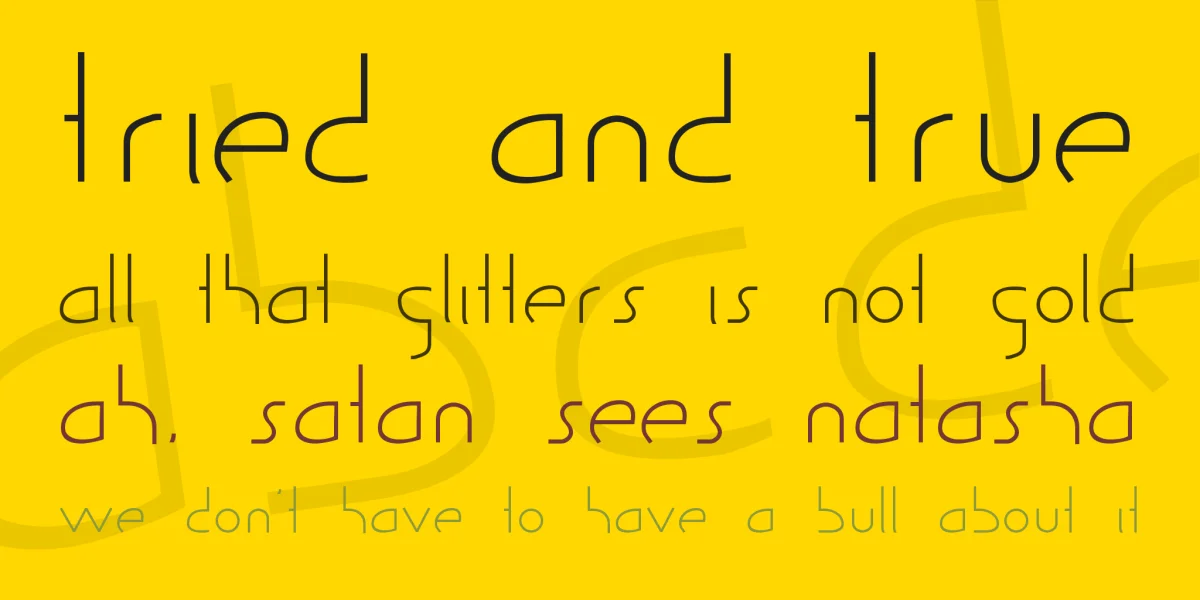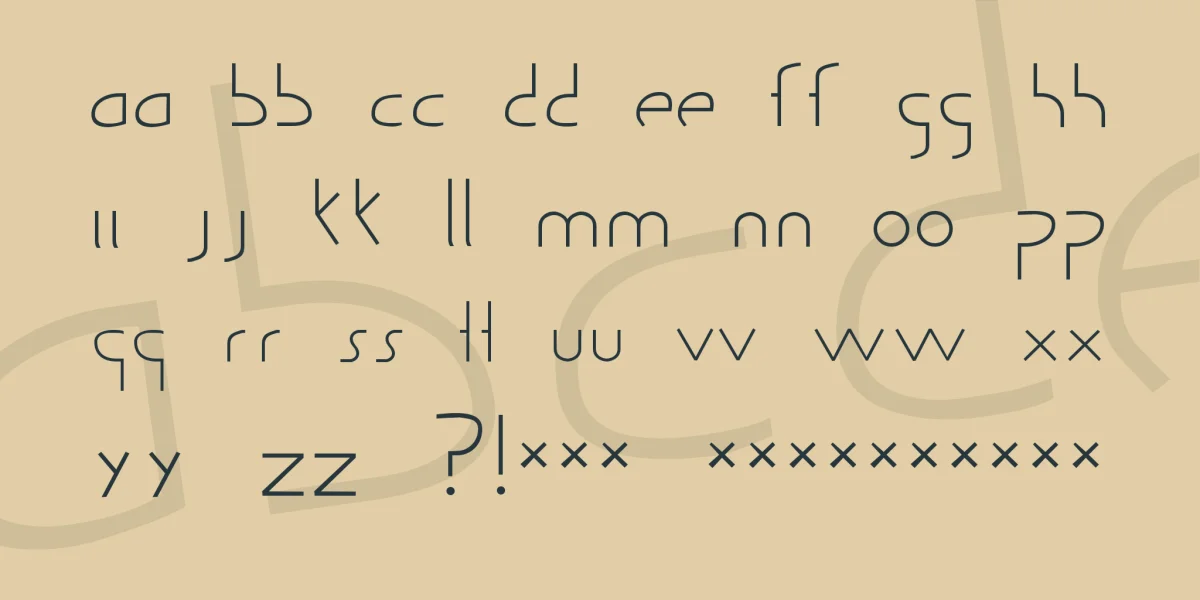
(Alphabet, punctuation, some foreign/special) is an open, light, experimental font. It's missing lines where there should be lines. As far as I know, there's no such thing as the Guild of Professional Actors. Pain-stakingly precise! Enjoy!